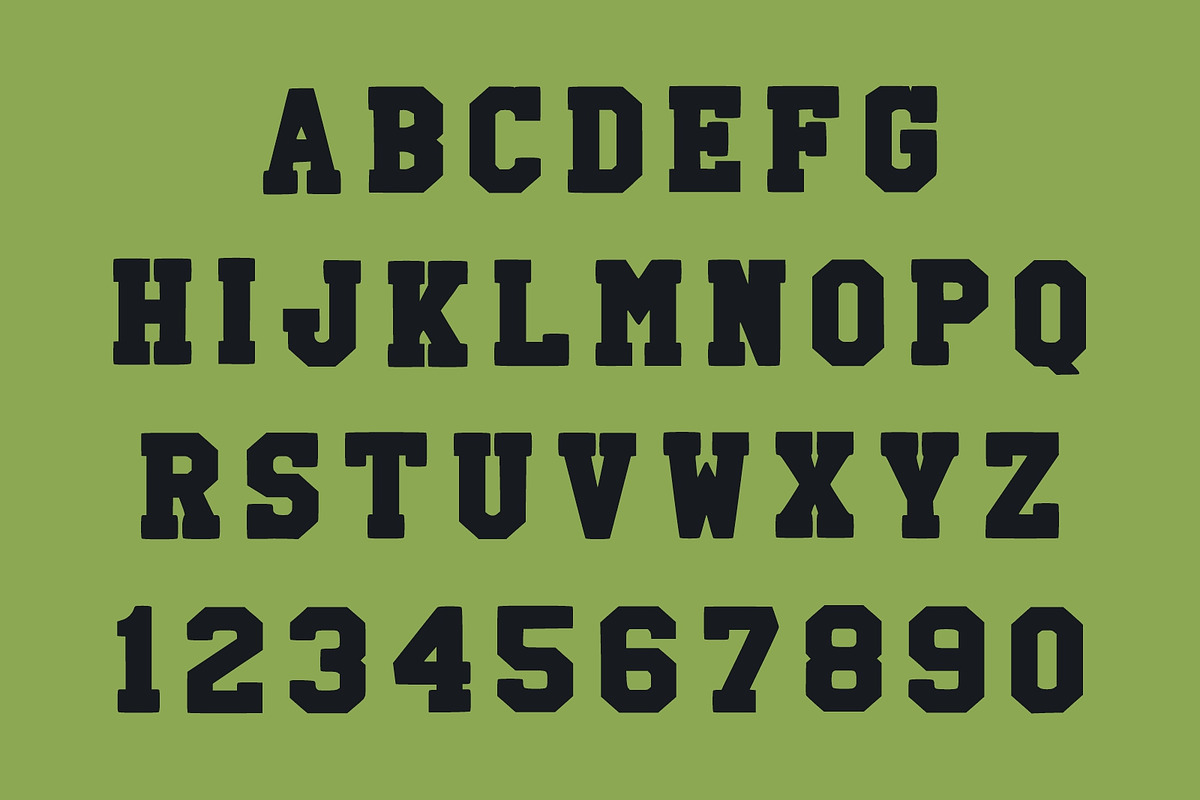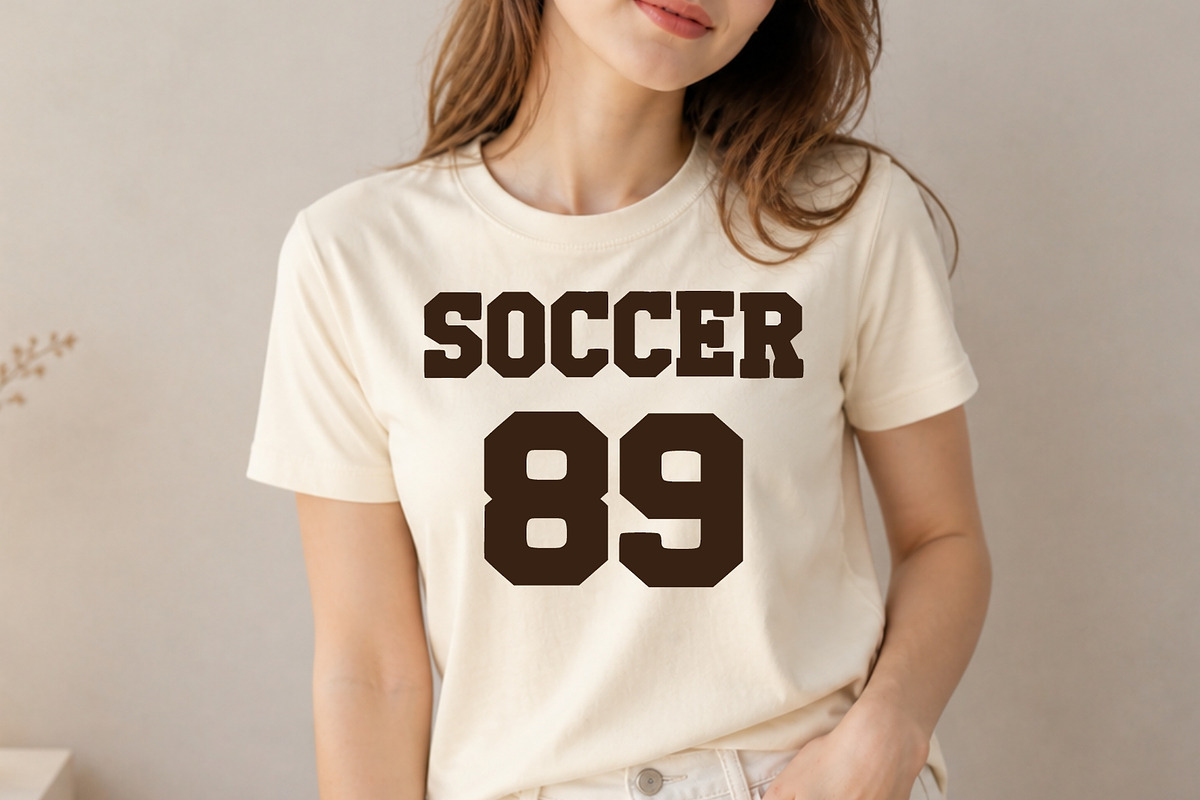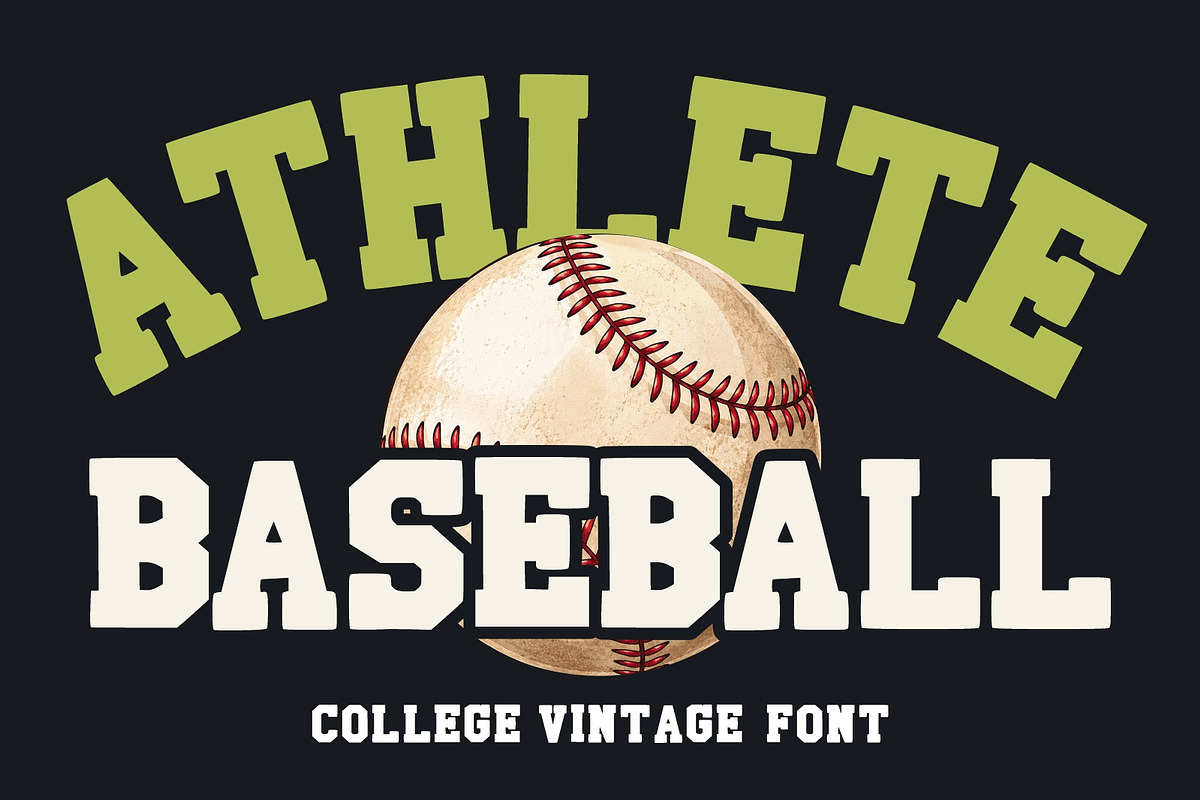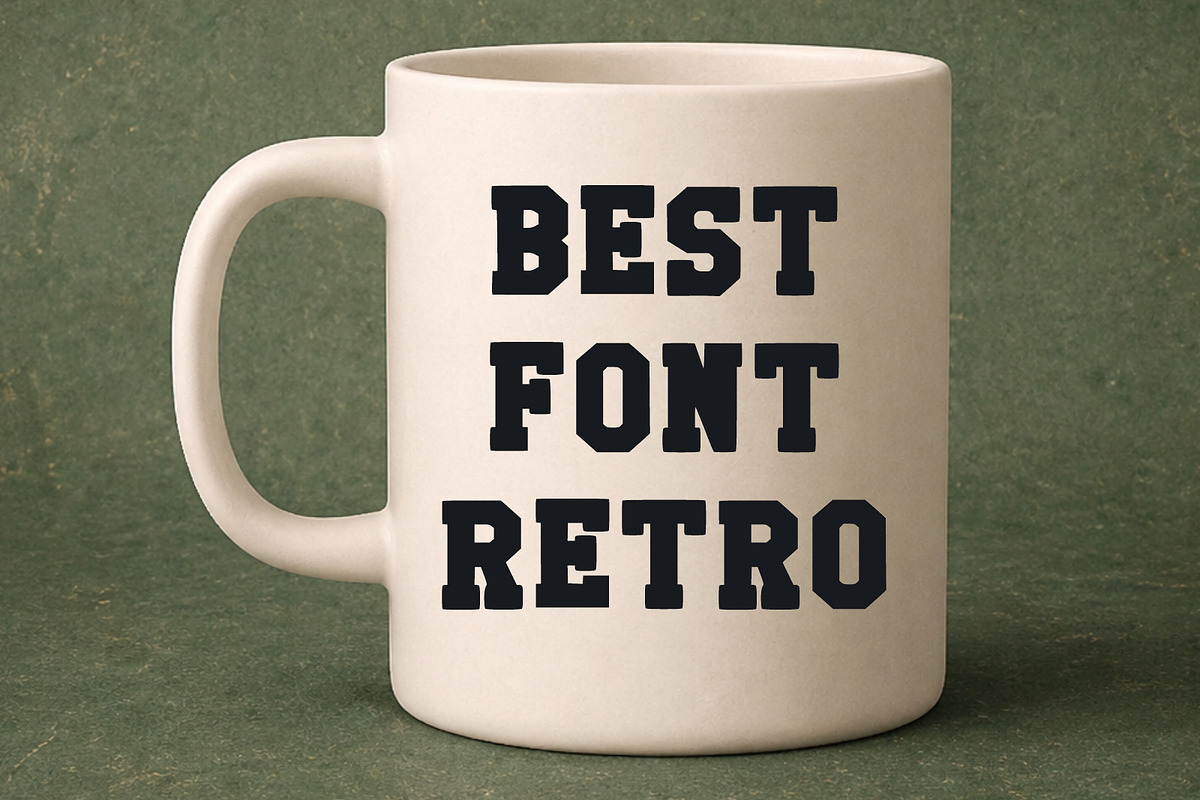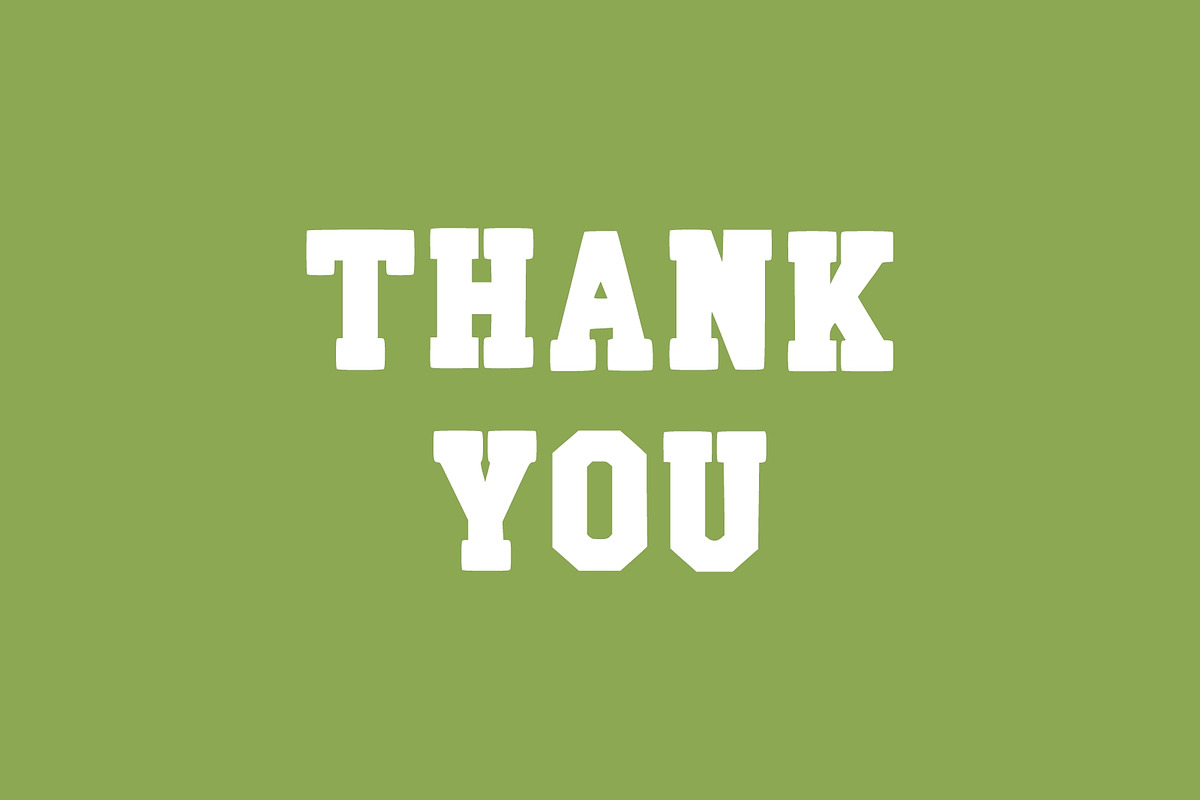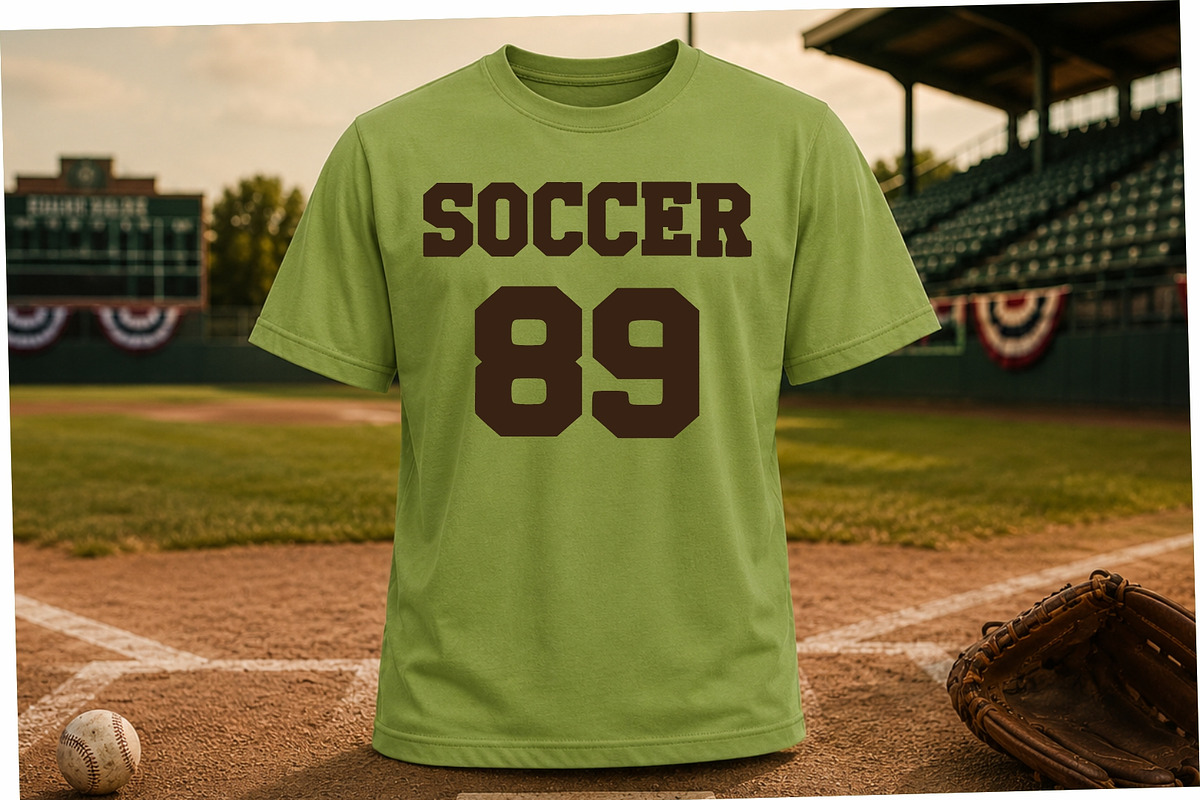
Athlete Baseball
Athlete Baseball is a bold college vintage font inspired by classic baseball typography and retro varsity lettering. Featuring strong slab serif characters with a sporty and athletic style, this font is perfect for baseball team branding, sports posters, t-shirt designs, logos, apparel, school merchandise, retro signage, and vintage-inspired projects. Its authentic collegiate look makes it ideal for creating eye-catching sports-themed designs with a nostalgic American baseball vibe.